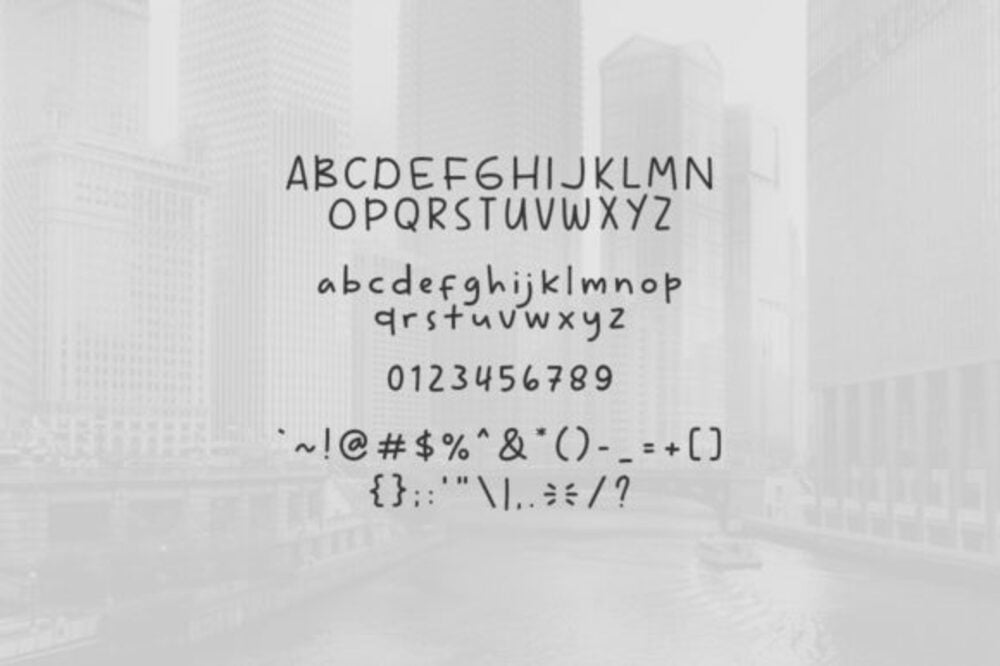
Baliho Font
Baliho Font is a bold and striking display typeface designed to command attention. With its strong lines and dynamic style, it’s perfect for posters, billboards, and headline designs. The font’s modern flair and impactful presence make it ideal for projects that require a statement. Baliho combines versatility with eye-catching appeal, ensuring your designs stand out in any setting.